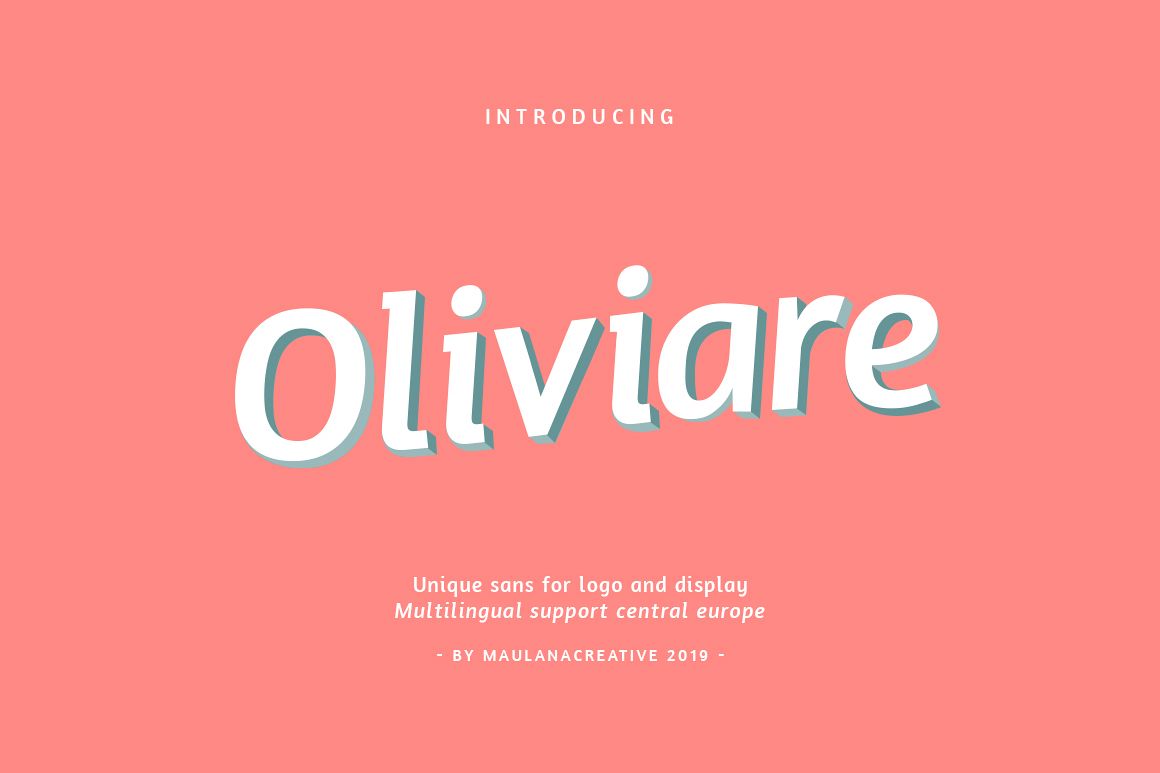
Oliviare Typeface is a Normal and Italic version. Oliviare Typeface is perfectly suited to branding, logos, magazines, films, website, headlines, titles, captions, games, apps, posters, t-shirts and more.This font available: